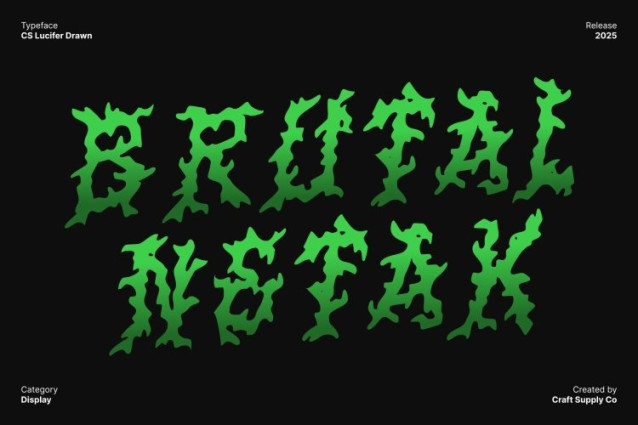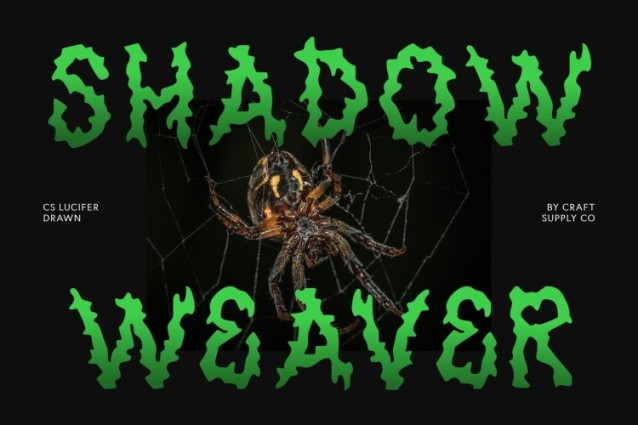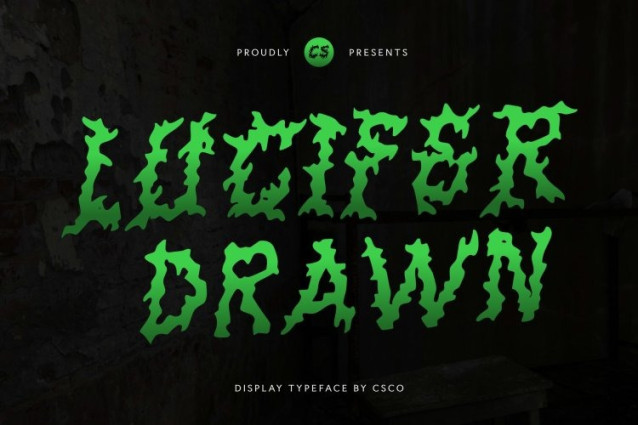
CS Lucifer Drawn Font
CS Lucifer Drawn Font This is a brutal black metal display font crafted for designs that demand intensity and unapologetic energy. Its jagged spikes, razor-sharp forms, and chaotic structure embody the raw visual power of extreme music culture. Every letter screams attitude, making this font perfect for projects that thrive on darkness, rebellion, and high-impact visuals.
Chaotic Hand-Drawn Texture for an Unfiltered, Violent Edge
What makes this font stand out is its expressive drawn effect. The handmade, roughened texture enhances the brutality of each stroke, adding depth and an unpolished aesthetic that feels wild and organic. Ideal for creators who want an aggressive, dramatic, and intense typographic voice.
Built for Band Logos, Posters, and Fearless Creative Projects
Designed to dominate visual space, this font excels in band logos, metal event posters, album covers, edgy branding, and any design that embraces darkness. Its extreme letterforms amplify the visual identity of metal, punk, horror, and underground subcultures.
A Distinctive Display Font for Designs That Refuse to Be Ignored
This font doesn’t whisper it roars. With its chaotic structure and hand-drawn brutality, it gives designers the perfect tool for creating visuals that stand out with fierce energy. Every stroke reinforces a sense of danger and raw emotion, making it an essential choice for projects seeking a bold, harsh, and unforgettable aesthetic.